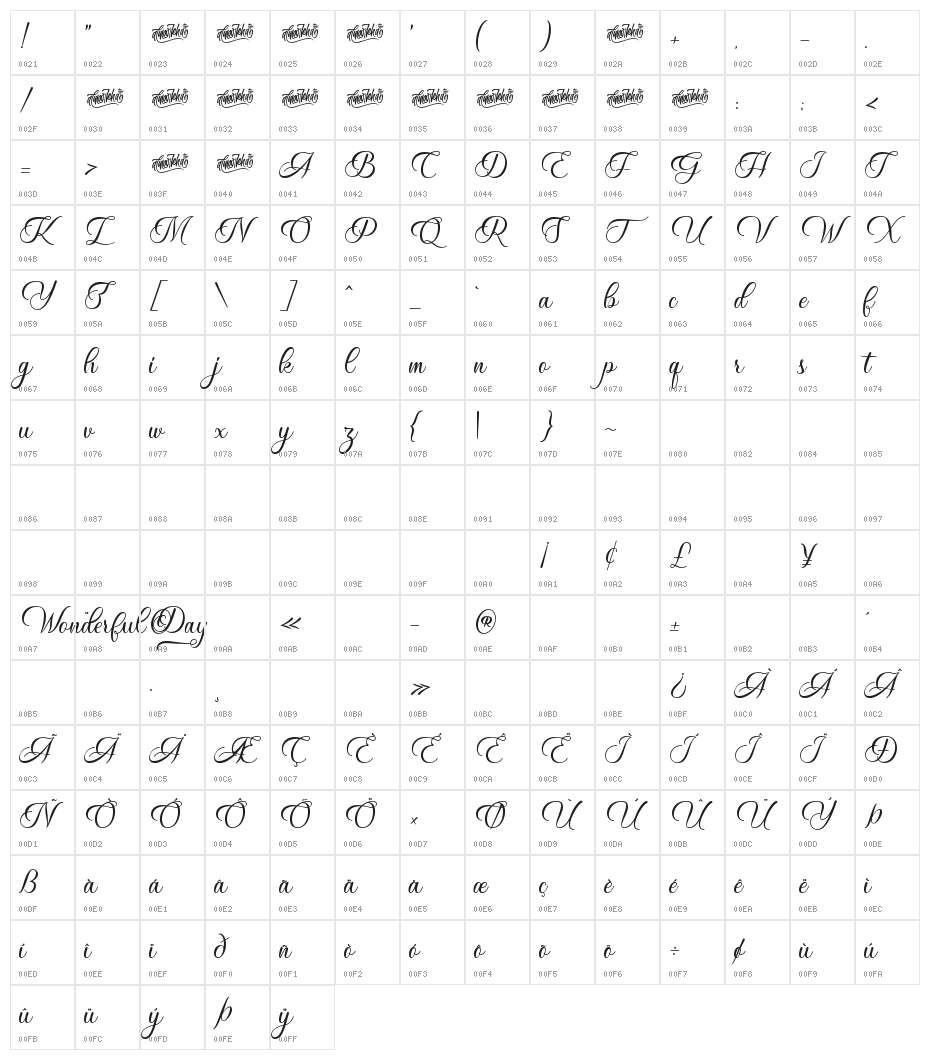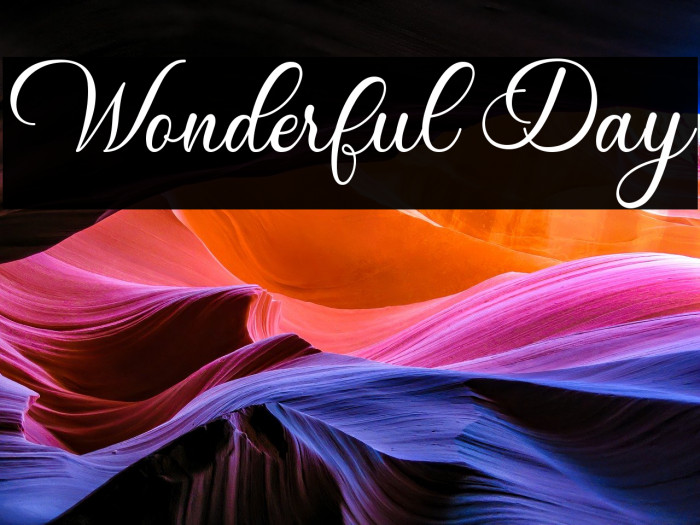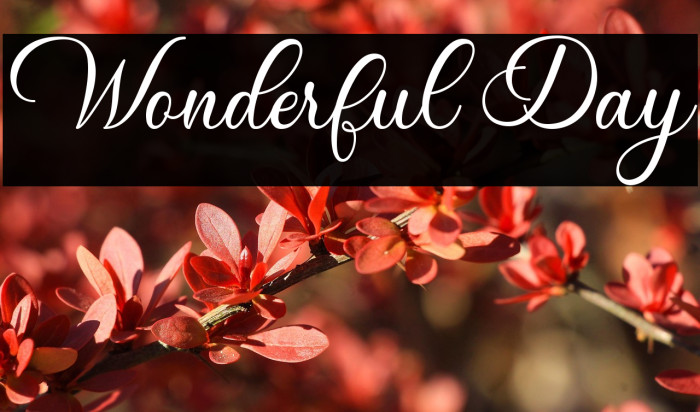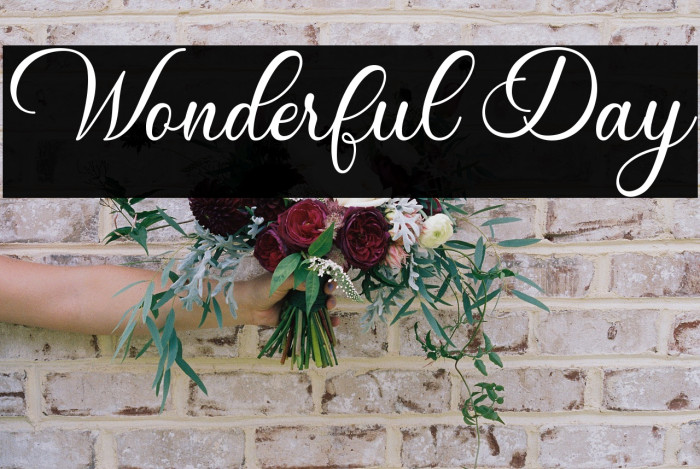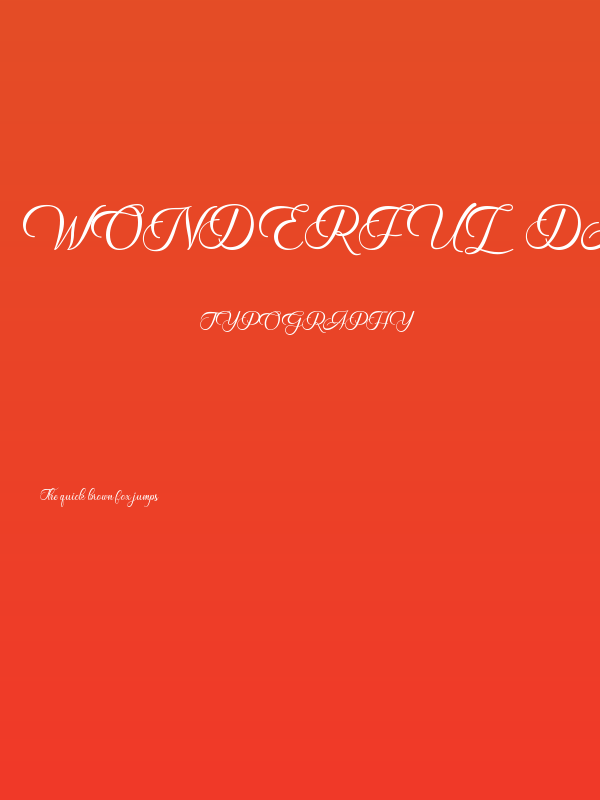
Wonderful Day Font
Wonderful Day Description
This elegant script font features flowing, cursive letters with a sophisticated and graceful appearance. The uppercase letters are ornate, with intricate loops and swirls, while the lowercase letters maintain a smooth, connected style that enhances readability. The font exudes a sense of luxury and refinement, making it ideal for formal invitations, branding, and decorative purposes. The characters are well-spaced, allowing for clear legibility despite the elaborate design. This font is perfect for projects that require a touch of elegance and class.
| Use Case | Headlines, Invitations, Branding |
| Proposed Projects | Ideal for wedding invitations, luxury branding, greeting cards, and decorative signage. |